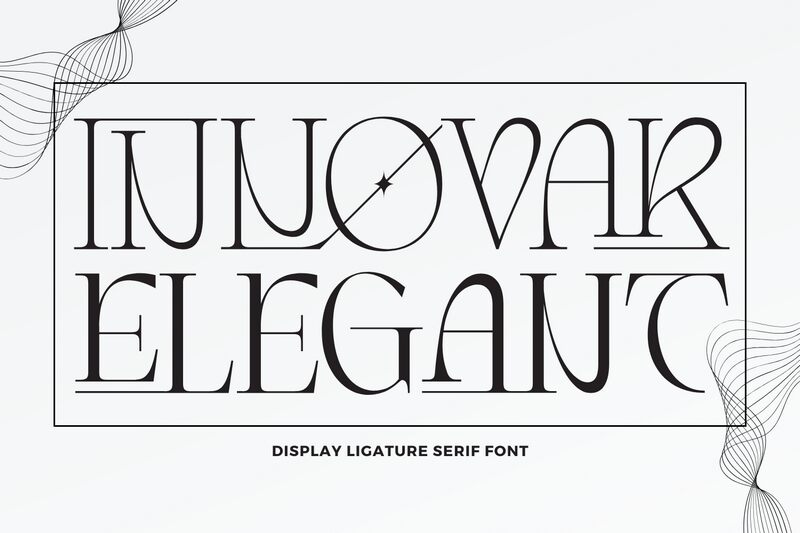
INNOVAR ELEGANT DEMO Light
Innovar Elegant Light font by 177Studio is a display font with ornate art deco influence. Its geometric elements, sophisticated aesthetic, and luxurious feel achieve modern elegance. The high-contrast characters perfectly balance in an exquisite manner creating a glorious work of art.
This free display font will look stunning in posters, flyers, magazines, websites, packaging design, photo captions and much more. Apparel branding, logos and logotypes made using this resource will also have their importance heightened by several levels instantly.